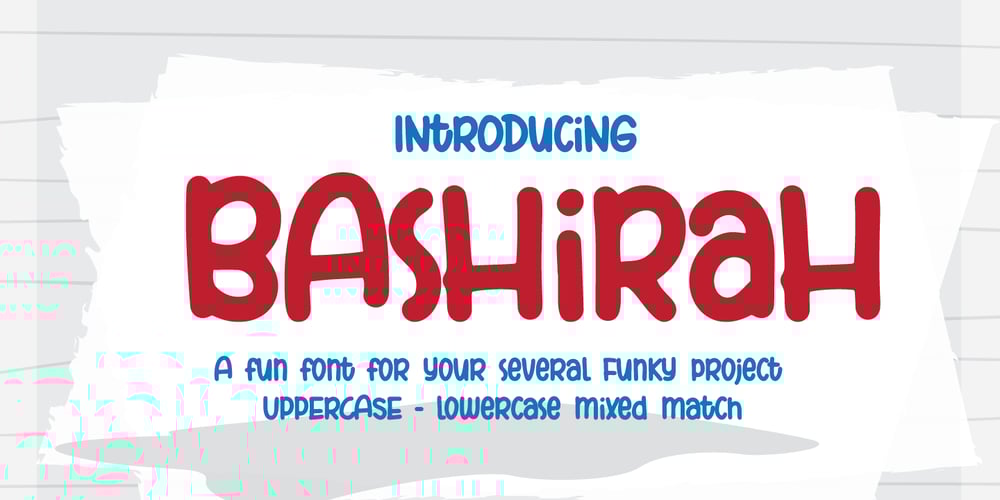
Bashirah Font Family was designed by Siti Saribanon Nurjannah and published by Cititype. Bashirah contains 1 styles and family package options. Bashirah is a cute and casual handwritten font with an incredibly friendly feel. It features gorgeous swashes and ligatures that make this script incredibly versatile. Whether you’re looking for fonts for Instagram or calligraphy scripts for DIY projects, Bashirah will turn any creative idea into a true piece of art!